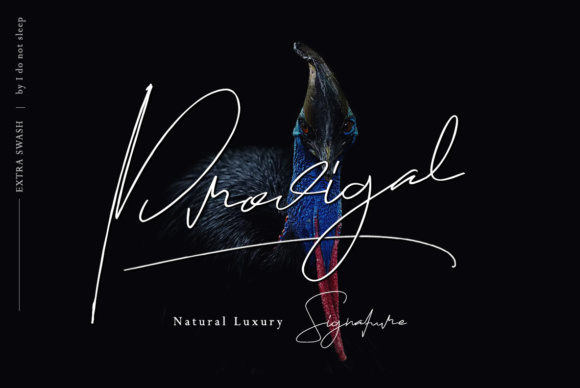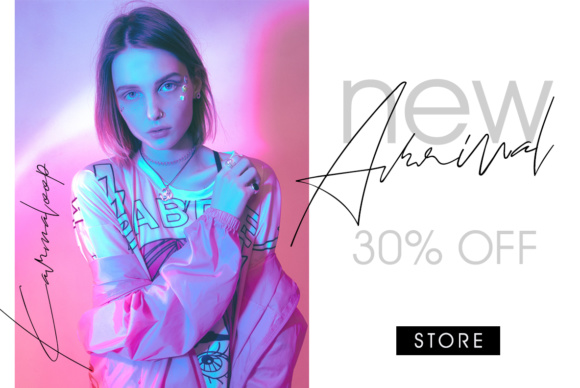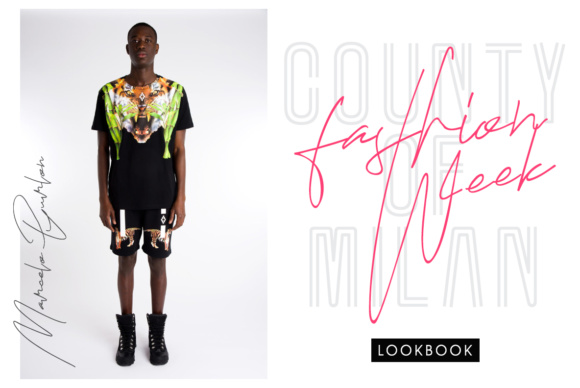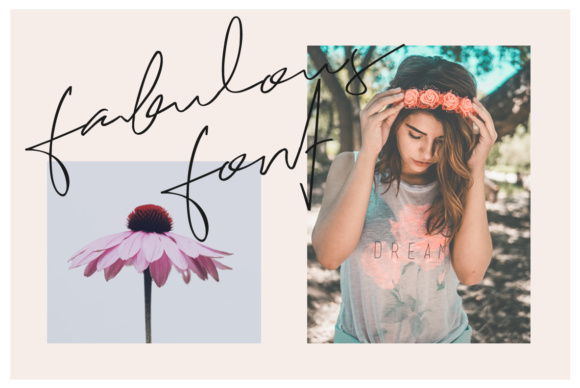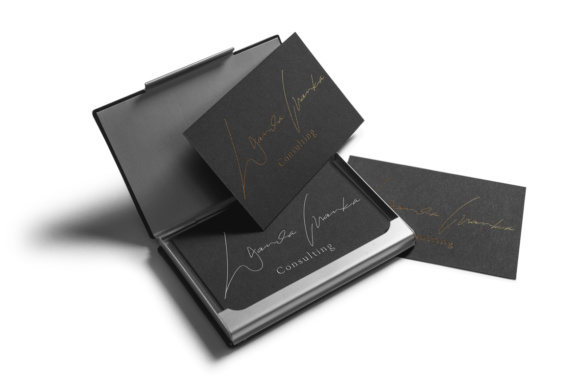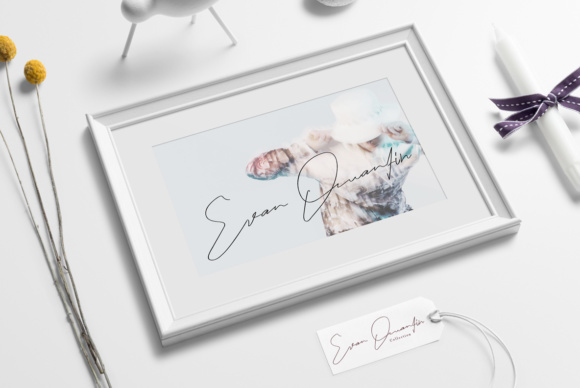
Prodigal Font
About Prodigal Font
Prodigal is a signature font with a natural handwritten look. It is equipped with swashes, ligatures, and multiple styles to make it a versatile font. Prodigal can be used for various purposes such as: signatures, watermarks, magazines, quotes, website, titles and much more!